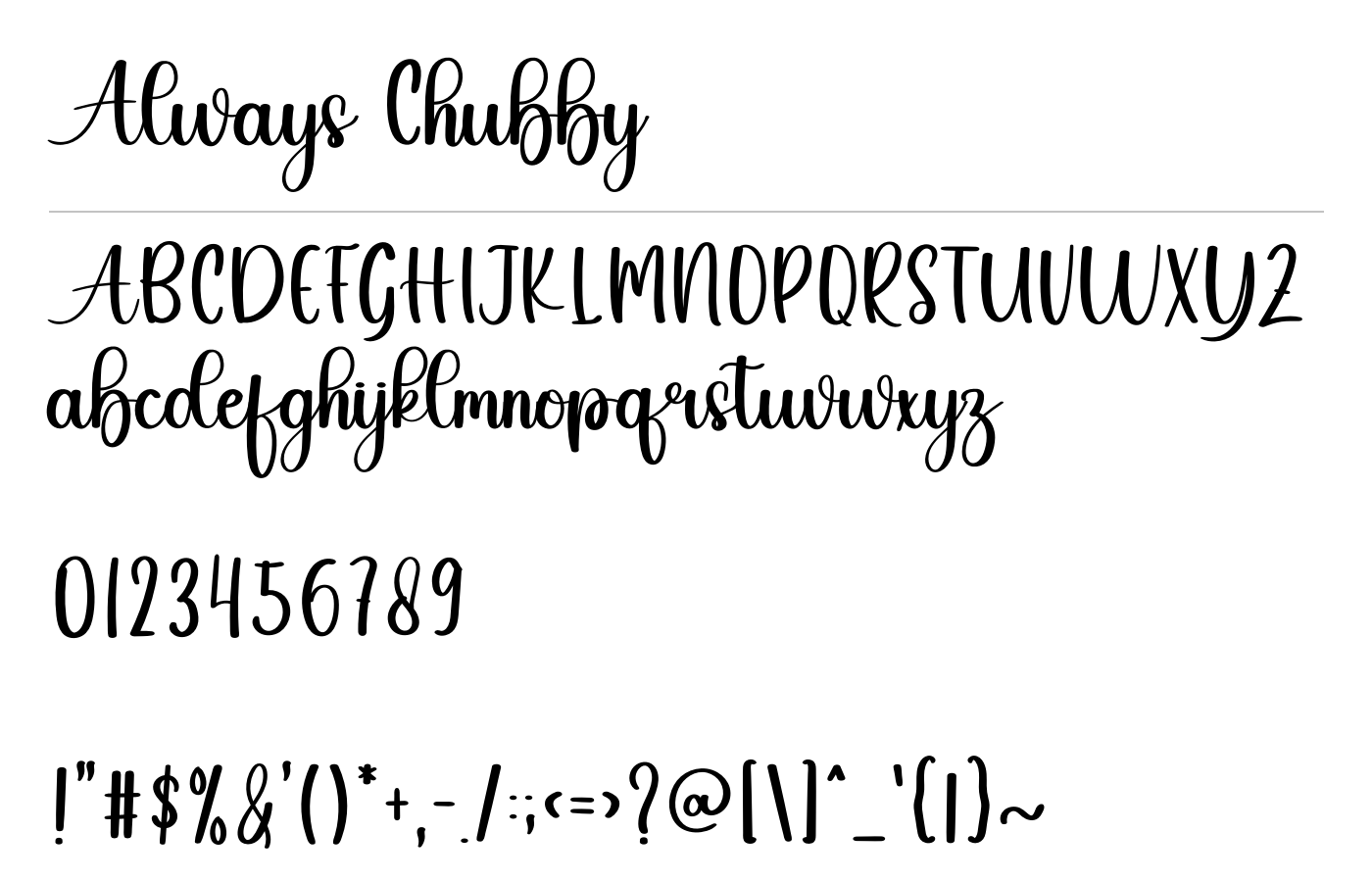
Always Chubby is a playful, handwritten script font that features tall, narrow letterforms with a lively, chubby appearance. Its smooth strokes and whimsical curves give it a friendly and approachable feel, making it perfect for creative projects, casual branding, and fun headlines. This font works well where a warm, personal touch is needed, such as invitations, logos, and social media graphics.
Always Chubby Font